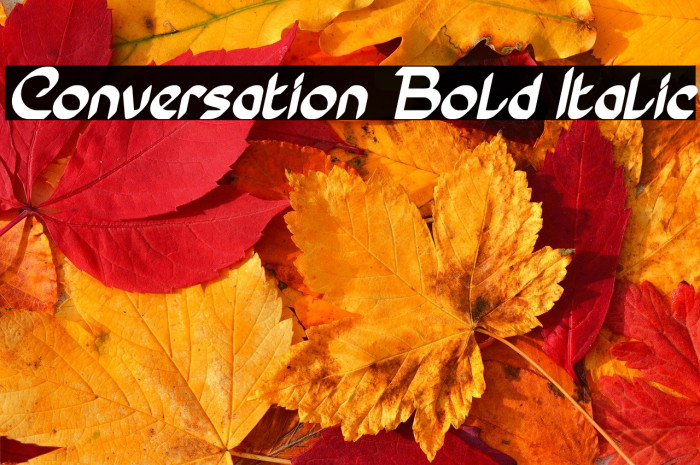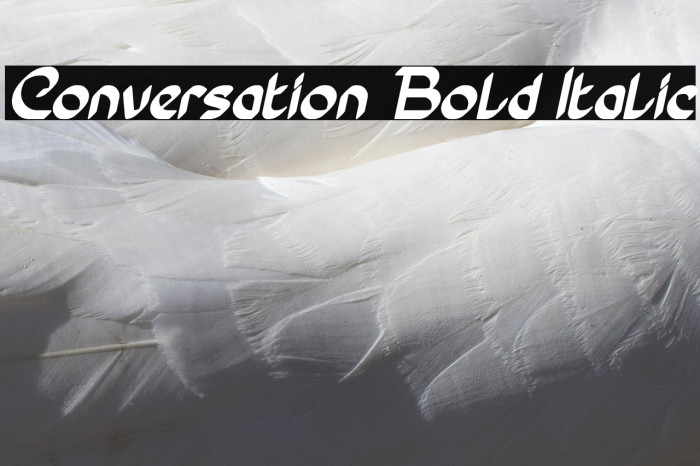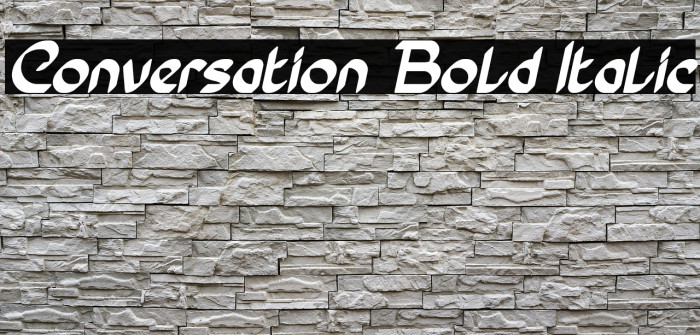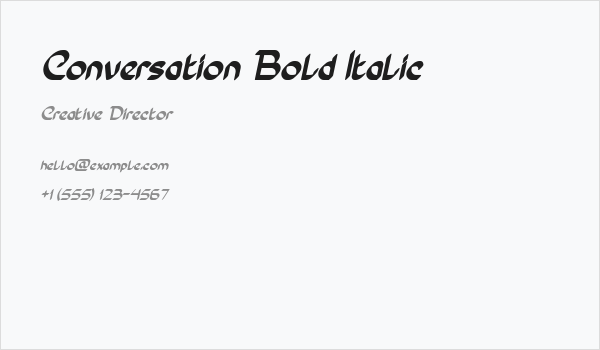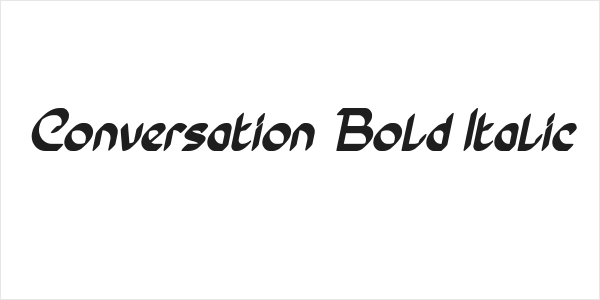
Conversation Bold Italic Font
Conversation Bold Italic Description
This font features a bold and italicized style, characterized by its dynamic and forward-leaning appearance. The letters are sharply angled, giving a sense of motion and energy. The strokes are thick and consistent, providing a strong visual impact. The uppercase and lowercase letters maintain a cohesive design, with smooth curves and sharp edges. Numbers and special characters follow the same stylistic approach, ensuring uniformity across all elements. This font is designed to capture attention and convey a modern, assertive tone.